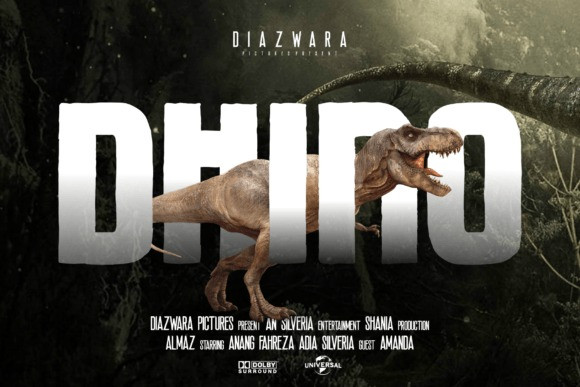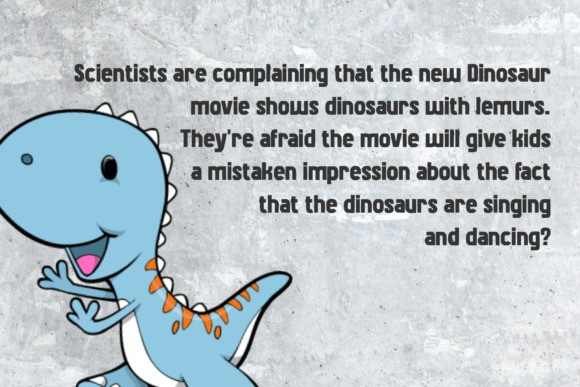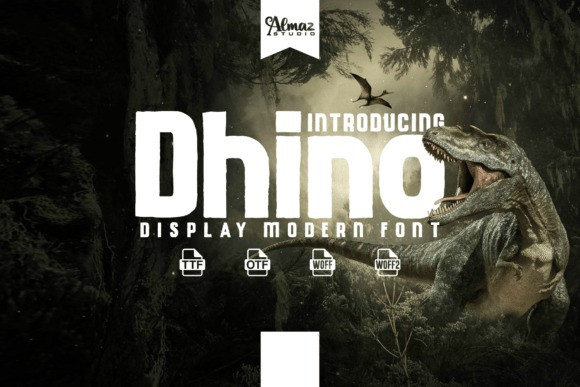
Dhino Font
Dhino font is perfect for those of you who want the style of children. Fonts Made specifically for purposes such as Kindergarten, Birthday, Kid, Cartoon, Comic, Children, and Playful. This Font contains Modern, Elegant, Creative, Professional, and Unique Concepts. Dhiino font is a minimalist fancy comic font. Dhino clean lines and sharp edges make it perfect sans the different weights making it a stellar option for branding and web use looks really beautiful with condensed spacing as well. Dhino It’s a fun and thick lettered display font. I really hope you will enjoy using the Dhiino font and that it will be the perfect addition to your font collection!